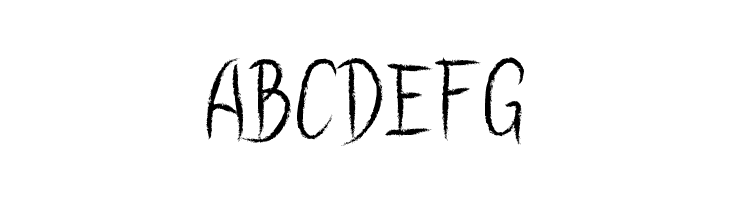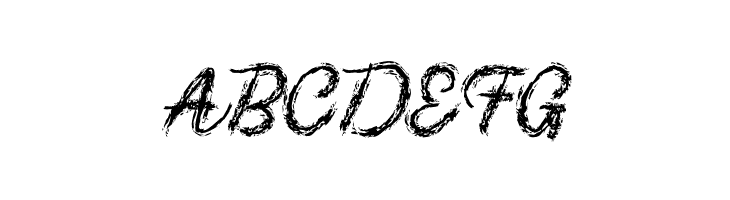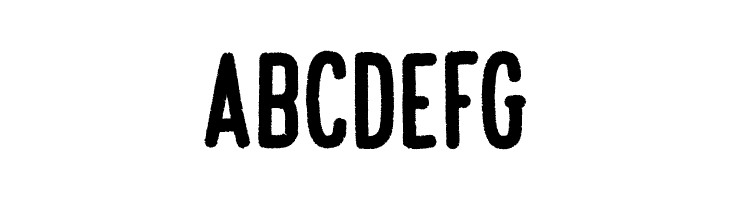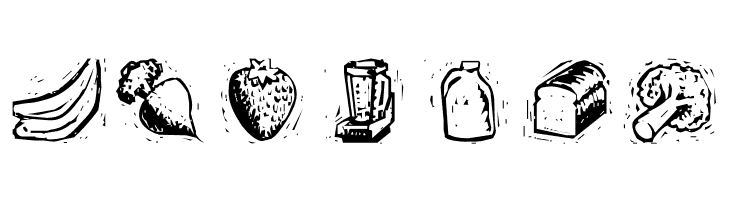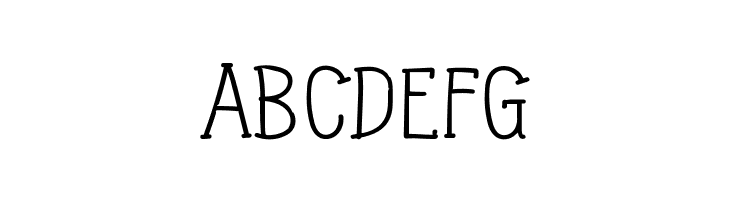
A decorative font with characters illustrated as various alcoholic beverages.
A hand-drawn, chalk-like font with a playful and informal style.
A textured, brush-style font with a chalk-like appearance and dynamic, hand-drawn feel.
Decorative font made from coffee cup ring stains.
A playful, bold handwritten font with smooth, rounded strokes.
A bold, calligraphic font with medieval influences and sharp serifs.
A bold, rounded, hand-drawn font with a warm and inviting style.
Hand-drawn food and kitchen icon dingbat font.
A bold, decorative font with a playful, textured design and italicized slant.
A playful, handwritten font with uneven strokes and a casual feel.